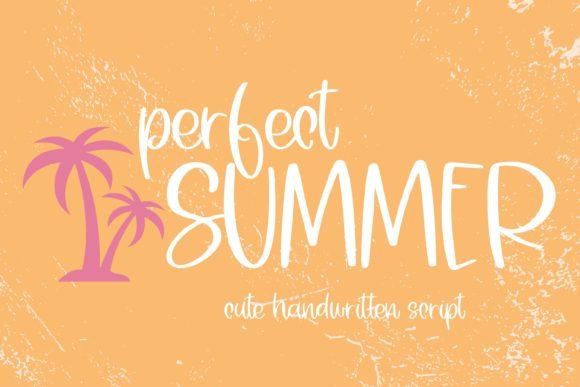
Introducing Perfect Summer Font, the ultimate choice for those seeking a cute and whimsical script font to infuse their designs with playfulness! Designed by the talented team at designingdigitals, this font is an absolute gem that will captivate your imagination and leave a lasting impression on your audience.
Are you on the hunt for the best font to elevate your wedding monograms? Look no further! Perfect Summer Font is the epitome of elegance and charm, making it the perfect choice for adding a touch of sophistication to your special day. Its graceful curves and unique letterforms will effortlessly transform any monogram into a work of art, ensuring that your wedding stationery stands out from the crowd.
But that's not all! Perfect Summer Font is a versatile companion that can be used across a wide range of design projects. Whether you're creating stunning SVG designs or crafting adorable greeting cards, this cursive font is your secret weapon for making a statement. Its playful nature and intricate details will infuse your creations with a sense of joy and whimsy, instantly grabbing the attention of anyone who lays eyes on them.
One of the most remarkable features of Perfect Summer Font is its exceptional legibility. Each letter has been meticulously crafted to strike the perfect balance between cuteness and clarity, ensuring that your message is delivered loud and clear. Say goodbye to those frustrating moments when your text gets lost in the shuffle – with this font, every word will shine brightly, effortlessly capturing the hearts of your audience.
Our team at designingdigitals understands that emotions play a vital role in design, and that's why we poured our hearts and souls into creating Perfect Summer Font. This font isn't just a tool; it's a gateway to a world filled with warmth, joy, and creativity. It will evoke a sense of nostalgia, reminding you of carefree summer days and capturing the essence of youthful exuberance.